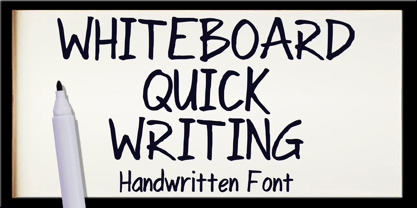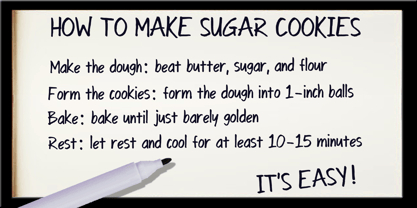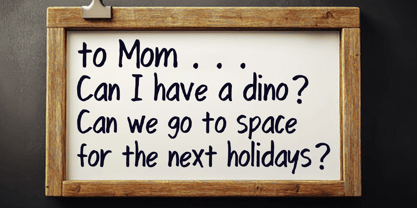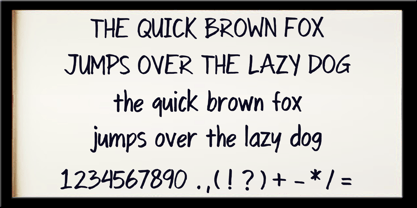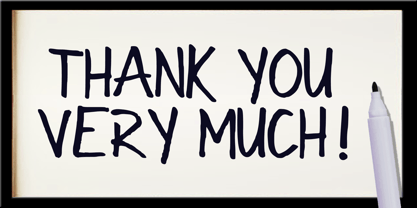
Whiteboard Quick Writing
by Mvmet
The Whiteboard Quick Writing Font Family was designed by Gabriel Valentinus and published by Mvmet. Whiteboard Quick Writing contains 1 styles. More about this family
Introducing Whiteboard Quick Writing, a playful and expressive marker font that effortlessly adds a creative spark to your daily interactions. Designed for versatility, this font brings life to every project it enhances. Transform mundane designs into masterpieces with ease—whether you're crafting captivating logos, impactful book covers, lively comics, unique cartoon illustrations, stylish stickers, or trendsetting t-shirt designs. The Whiteboard Quick Writing font not only elevates your design but also infuses it with an undeniable cool factor, making it perfect for branding, web use, and editorial projects.
Designers: Gabriel Valentinus
Foundry: Mvmet
Mvmet is an Indonesia-based font studio which began making fonts in early 2020. Mvmet strives to make fonts fun and accessible for both the average computer user and professional designers, with original experimental fonts and affordable trend-setting commercial fonts. Mvmet also creates custom fonts for companies who want exclusive rights and a specific design for a typeface. Clients who have used Mvmet’s custom font services include some company in Indonesia and abroad.